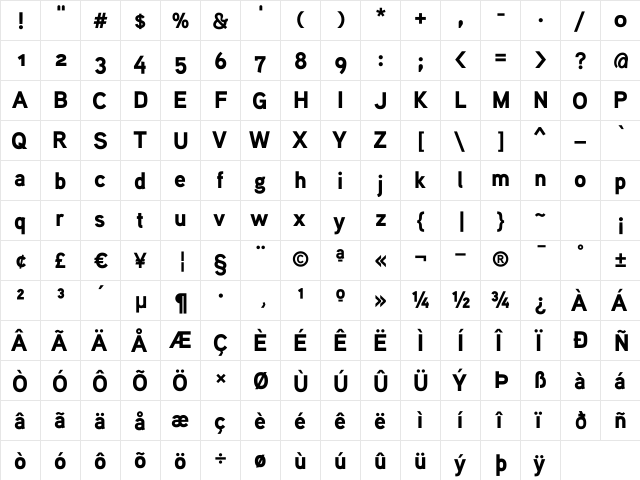
Aaux ProBlack OSF Regular
Design Context for Aaux ProBlack OSF Typeface
Aaux ProBlack OSF takes a measured approach to typography — its balanced proportions and neutral character make it a reliable workhorse for both digital and print work.